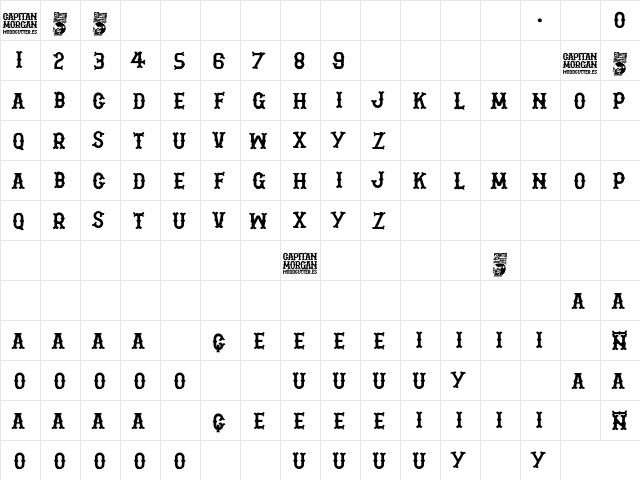
Capitan Morgan Regular
| Designer | Woodcutter Manero |
Design Context for Capitan Morgan Typeface
Capitan Morgan is a composed and adaptable typeface that performs quietly and consistently across a wide range of design contexts.